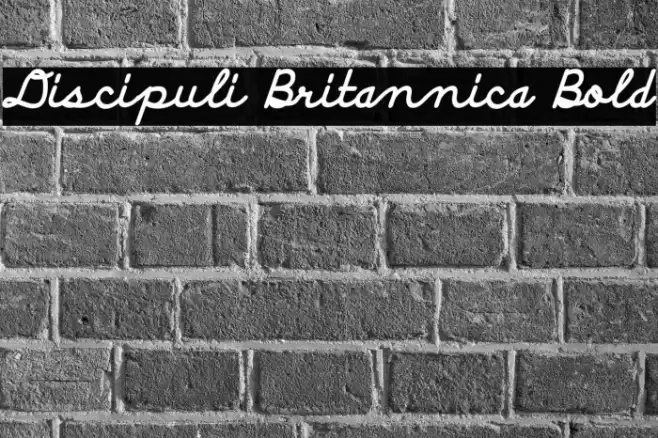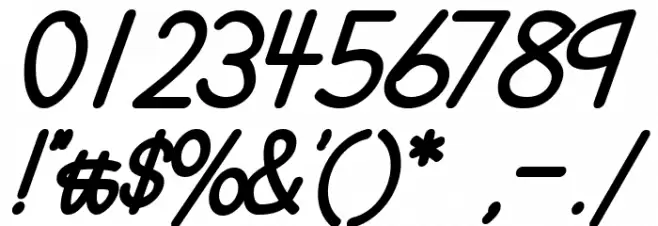
Discipuli Britannica Bold Font
Discipuli Britannica Bold Description
This font features a bold, cursive style with smooth, flowing lines that create a sense of elegance and fluidity. The uppercase and lowercase letters are connected, enhancing the script-like appearance. The numbers and special characters maintain the same flowing style, ensuring consistency across all elements. The overall design is both modern and classic, making it versatile for various applications. The bold weight adds emphasis and visibility, while the medium contrast in stroke thickness provides a balanced look. This font is ideal for projects that require a personal touch or a handwritten feel.
A bold, cursive font with smooth, flowing lines and connected letters from Uncategorized fonts.
- Overall Style: Modern, Classic